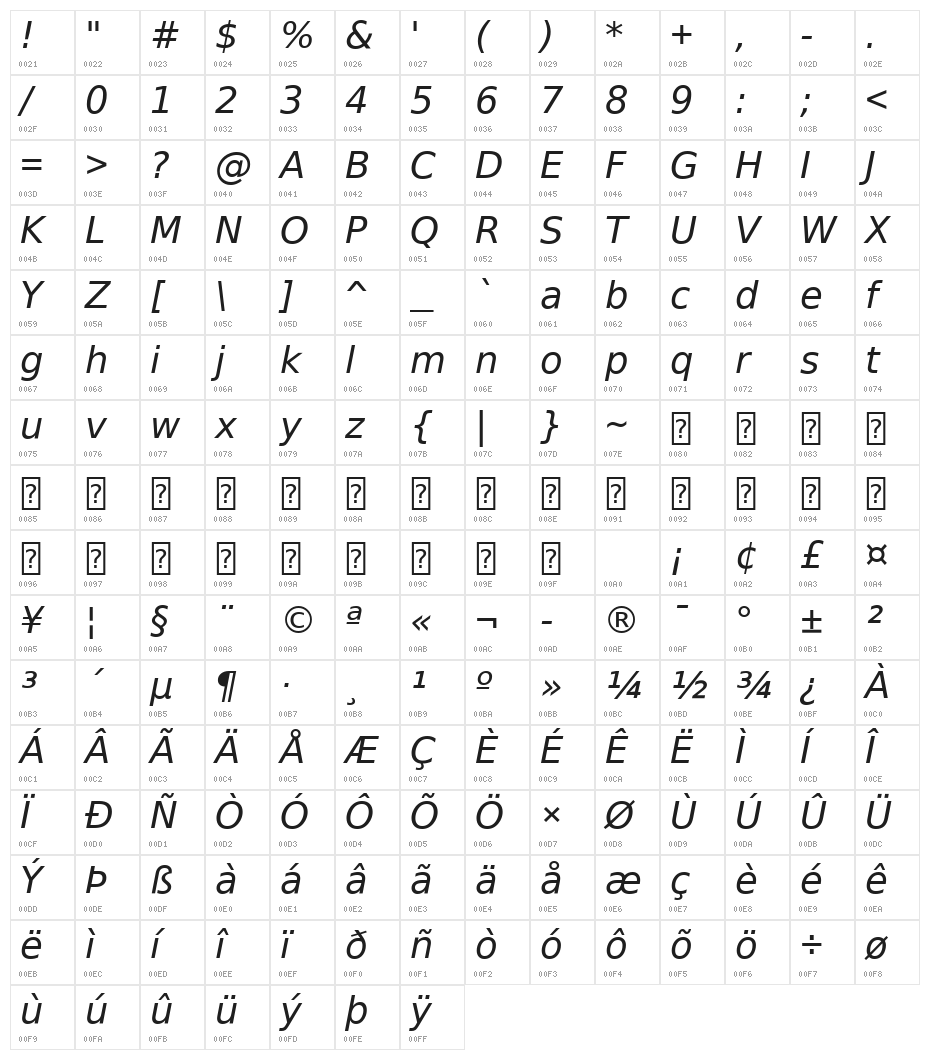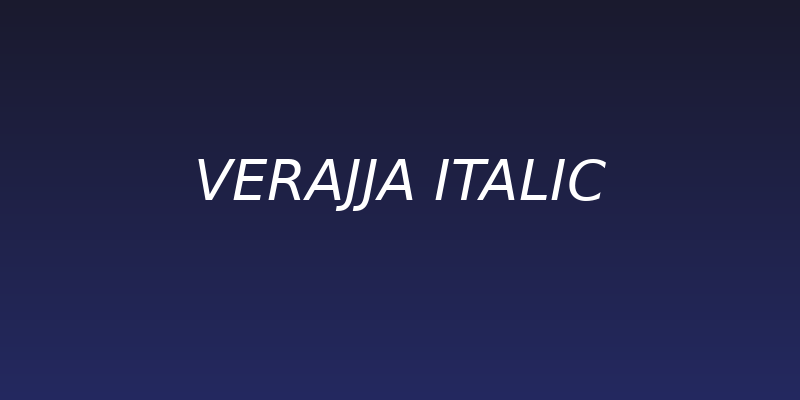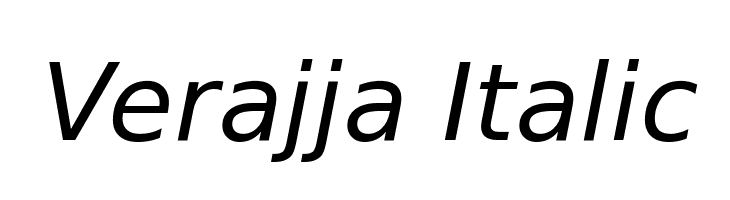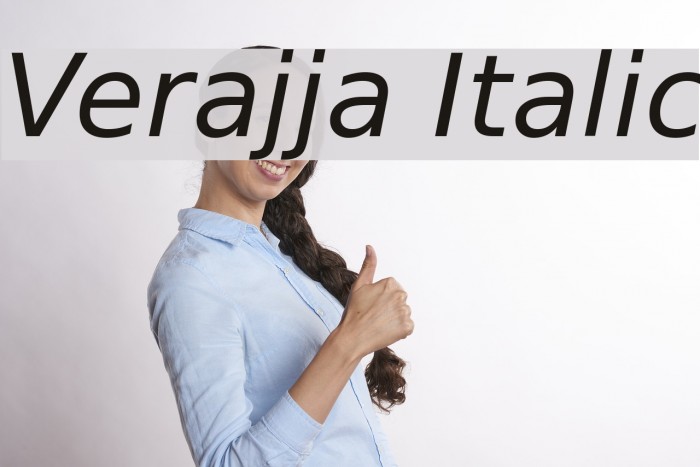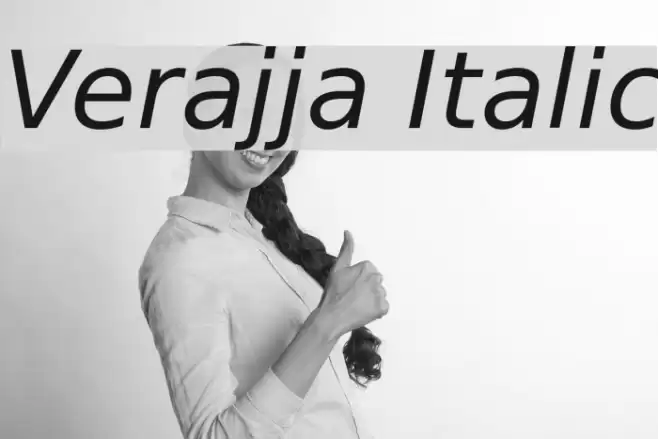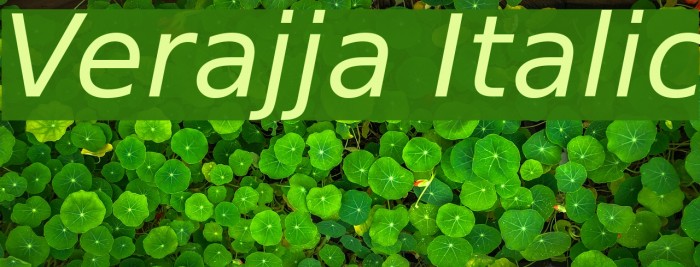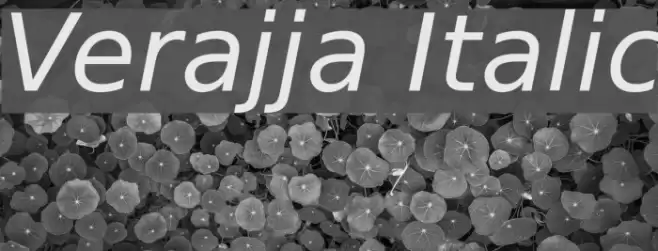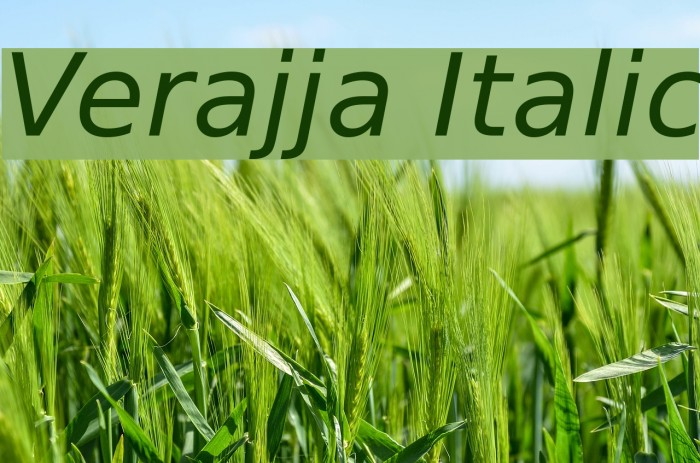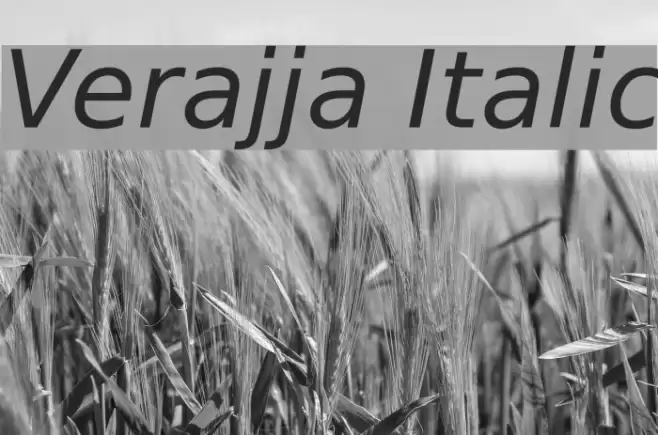
Verajja Italic Font
Verajja Italic Description
This font presents a sleek and modern aesthetic with a slight italic slant, giving it a dynamic and forward-moving appearance. The characters are clean and well-defined, with a consistent stroke width that maintains readability across various sizes. The uppercase letters are bold and commanding, while the lowercase letters offer a softer, more approachable feel. The numerals are clear and distinct, making them suitable for both display and text purposes. Special characters are elegantly integrated, ensuring versatility in design applications.
| Use Case | Headlines, Body text, Logos |
| Proposed Projects | Ideal for branding, advertising, and editorial design where a modern and professional look is desired. |